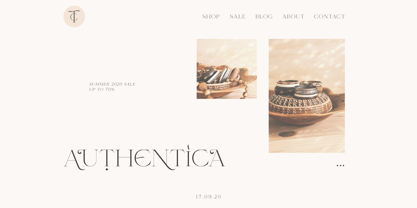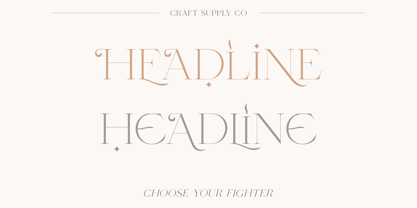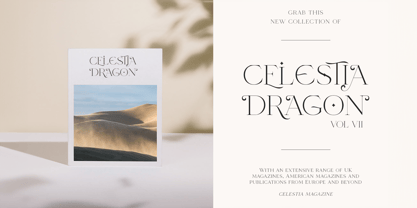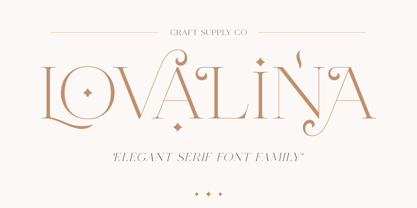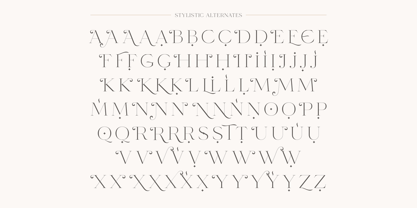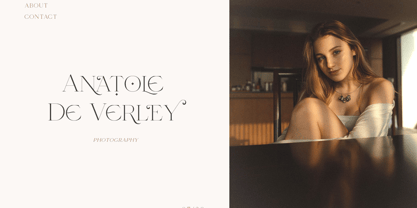
Lovalina
The Lovalina Font Family was designed by Trio Nazzar Saputra, Wahyu Hadi Yuana and published by Craft Supply Co. Lovalina contains 2 styles and family package options. More about this family
Lovalina – Elegant Serif Font Family is an Elegant serif font with solid font files. it is based on the compact Elegant font, by combining a variety of styles. Suitable for Logo, greeting cards, quotes, posters, branding, name card, stationary, design title, blog header, art quote, typography Lovalina – Elegant Serif Font Family also suitable for art, modern envelope lettering or book design, craft design, any DIY project, book title, wedding font, pop vintage design, or any purpose to make our art/design project look pretty and trendy.